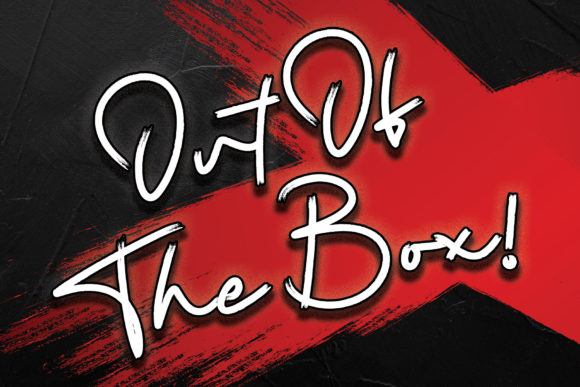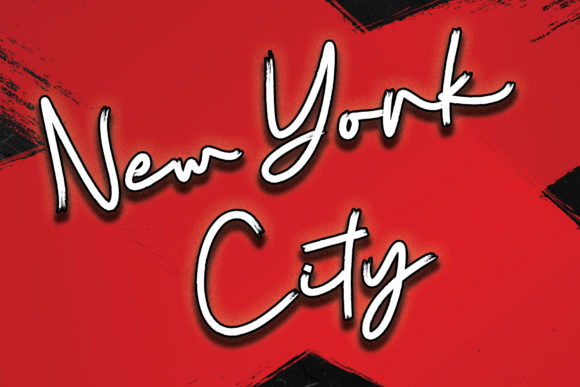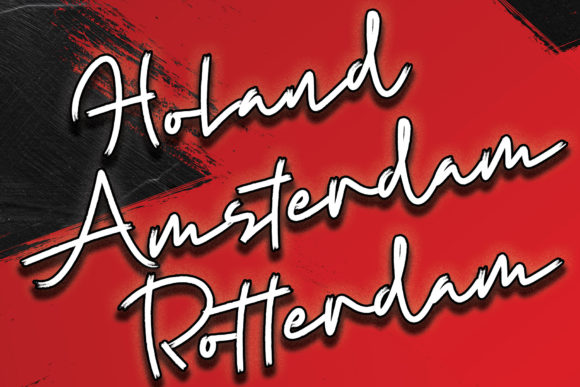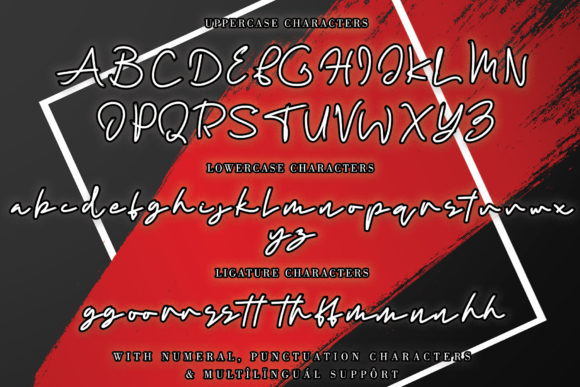
Rutter Font
About Rutter Font
Rutter is a gorgeous and cute script font that feels both nostalgic and contemporary.. It’s perfectly suited for adding a personal touch to any design idea!